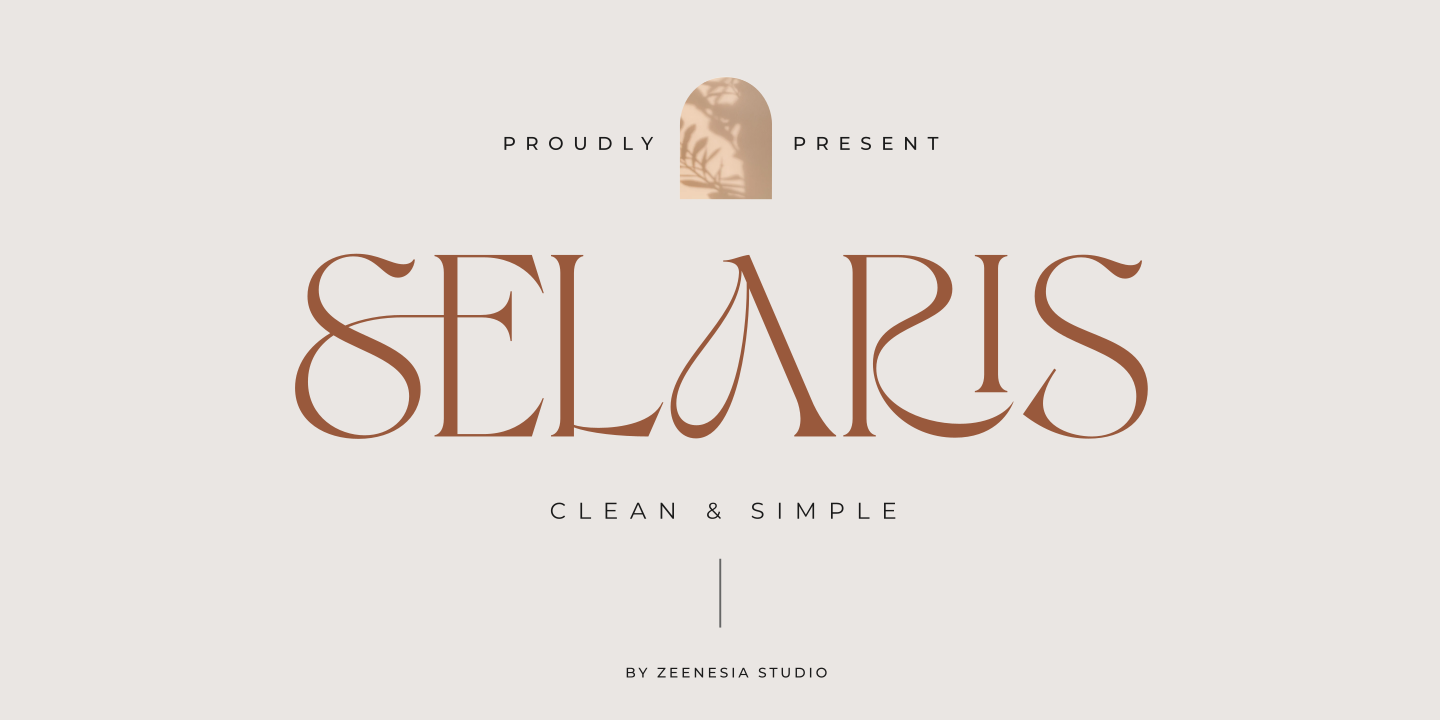
Selaris Font is perfect for space technology companies, astronomical research institutes, futuristic sci-fi projects, planetary science materials, cosmic exploration campaigns, solar energy branding, celestial observatory signage, aerospace industry identity, and stellar social media content. This cosmic typeface brings interstellar elegance and celestial sophistication to both digital and print design applications.
Selaris Font is exciting because it captures the infinite beauty and cosmic wonder of celestial bodies, making it an exceptional choice for designers who want to convey stellar magnificence with authentic astronomical inspiration. Its stellar letterforms and cosmic proportions provide the perfect combination of celestial elegance and scientific functionality, ensuring your projects communicate cosmic excellence, stellar beauty, and astronomical sophistication that resonates with audiences seeking genuine space exploration and celestial experiences.
The Selaris Font family includes stellar weight variations and cosmic elements, featuring light, regular, and bold weights with complementary celestial styles, astronomical ligatures, and solar-inspired decorative flourishes. Each style maintains consistent cosmic aesthetics while offering flexibility for different space applications, allowing designers to create galactic visual systems that reflect astronomical precision and stellar sophistication.
Whether you're designing for aerospace brands, scientific organizations, or cosmic-themed businesses, Selaris Font Free Download delivers authentic celestial appeal and astronomical sophistication that connects with audiences seeking genuine space exploration and stellar experiences. This premium typeface offers designers the cosmic elegance and stellar precision needed to create designs that communicate astronomical excellence, space innovation, and celestial beauty effectively. The font's stellar character makes it perfect for space branding, cosmic campaigns, and astronomical applications where authentic celestial credibility is essential. Download Selaris Font today and launch your creative projects with genuine stellar sophistication and cosmic typography excellence that defines space exploration standards.